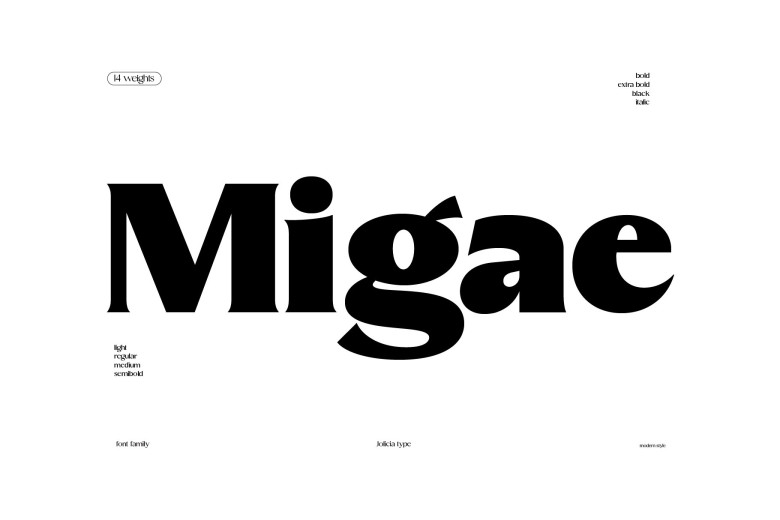
Migae Font
Migae is a versatile and elegant display typeface designed to draw attention to any number of designs. Boasting 14 distinct weight variations spanning soft Light to bold Black as well as its own set of italics, Migae provides a harmonious combination of elegance and strength to meet all your typographic requirements.
Migae Display Font